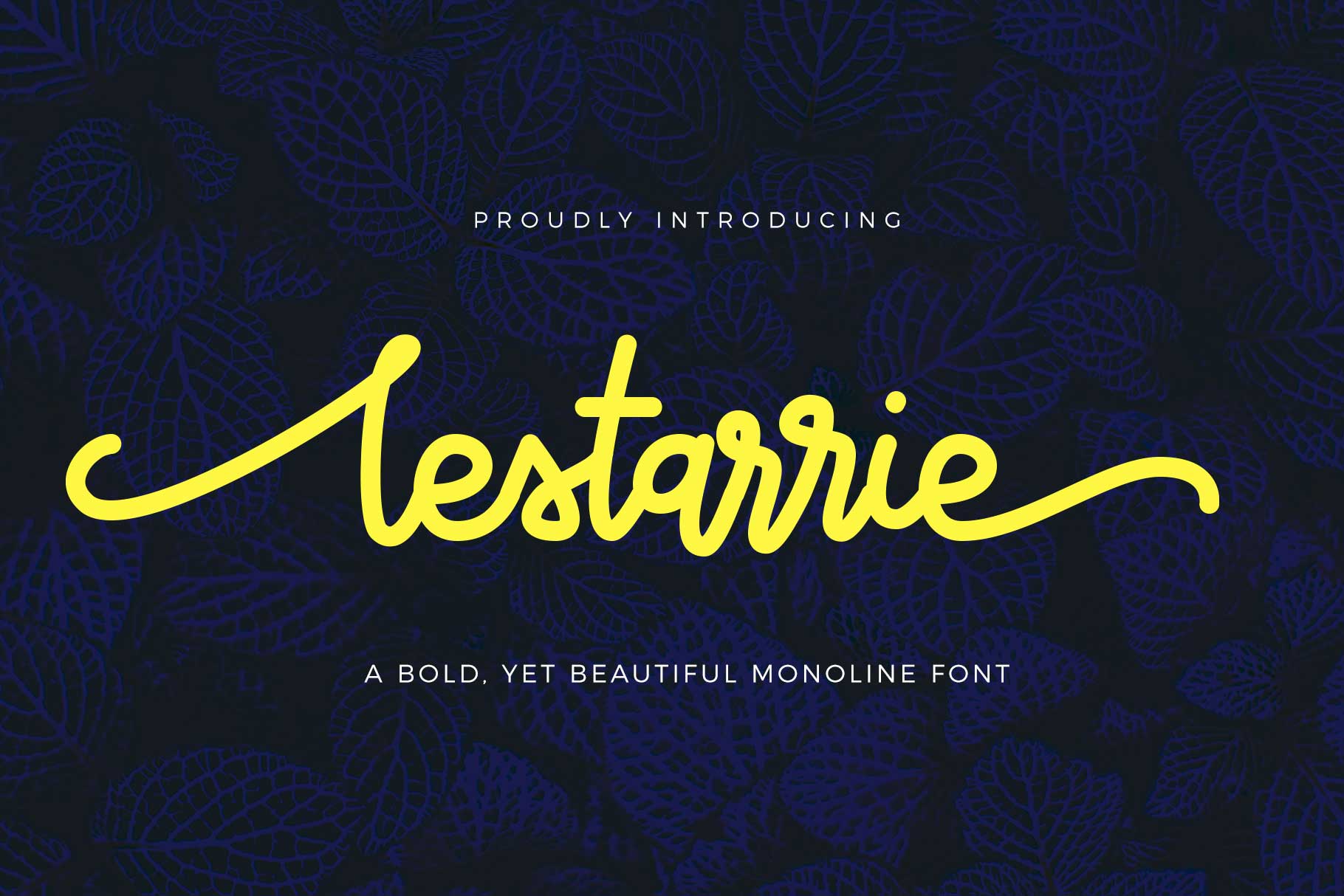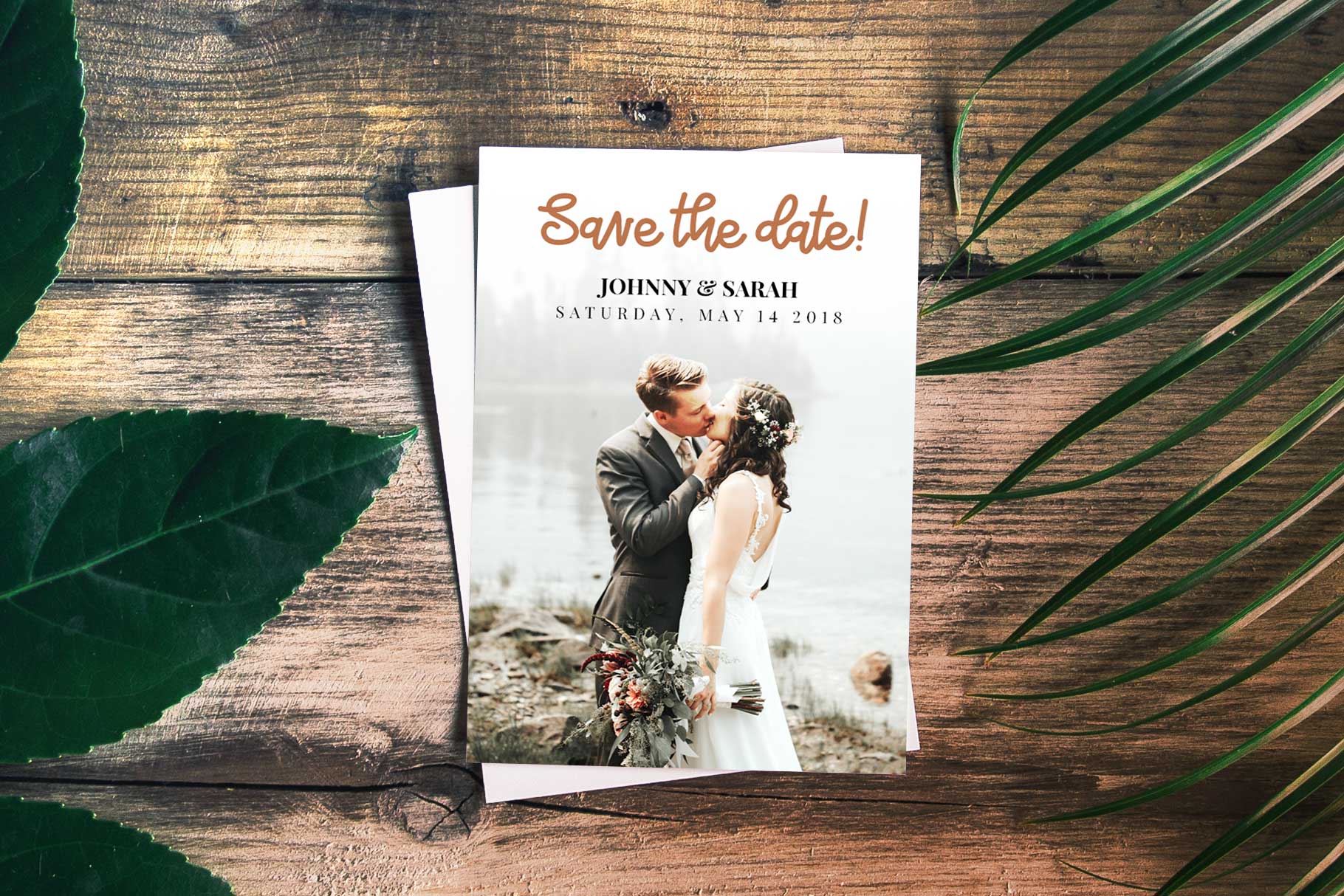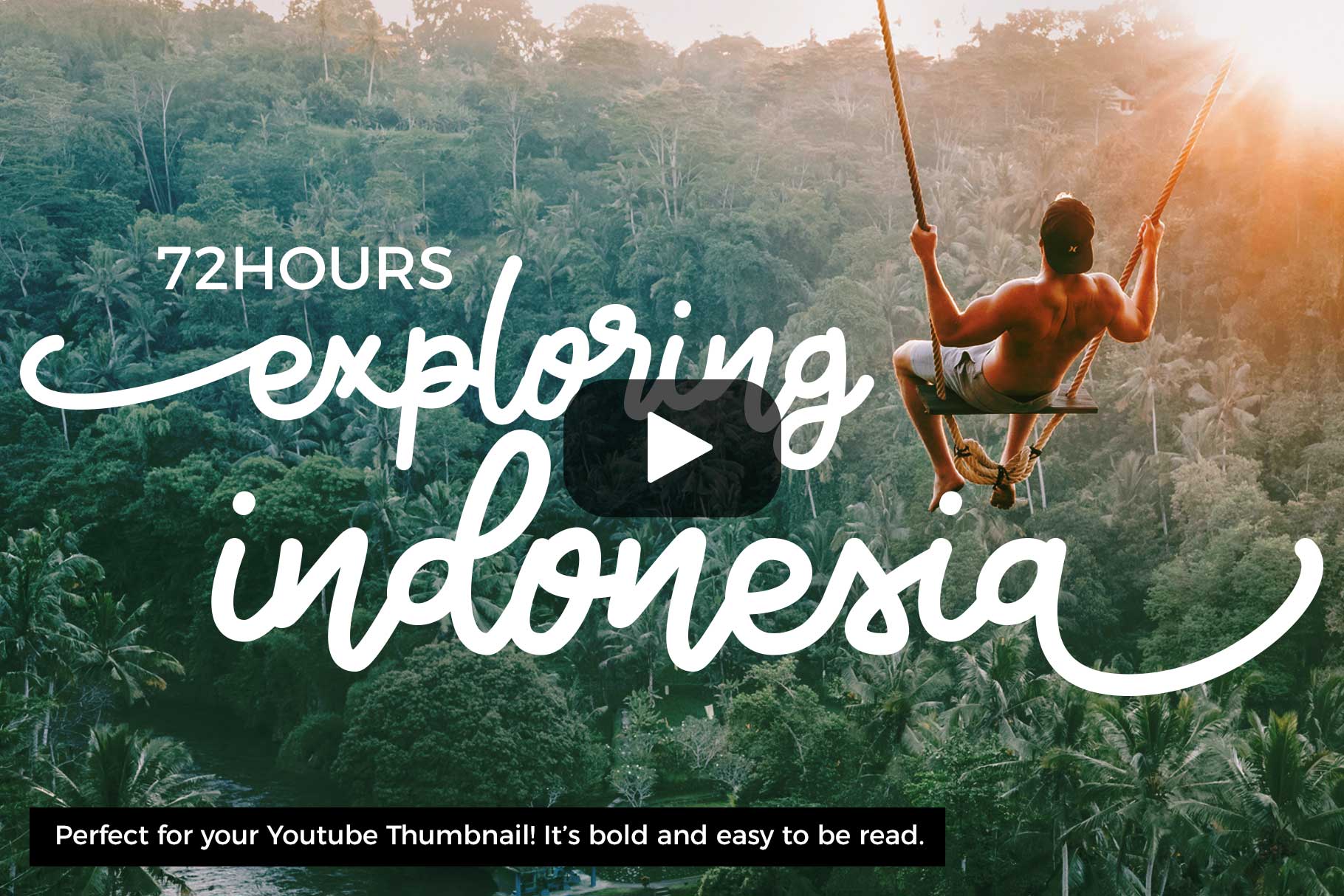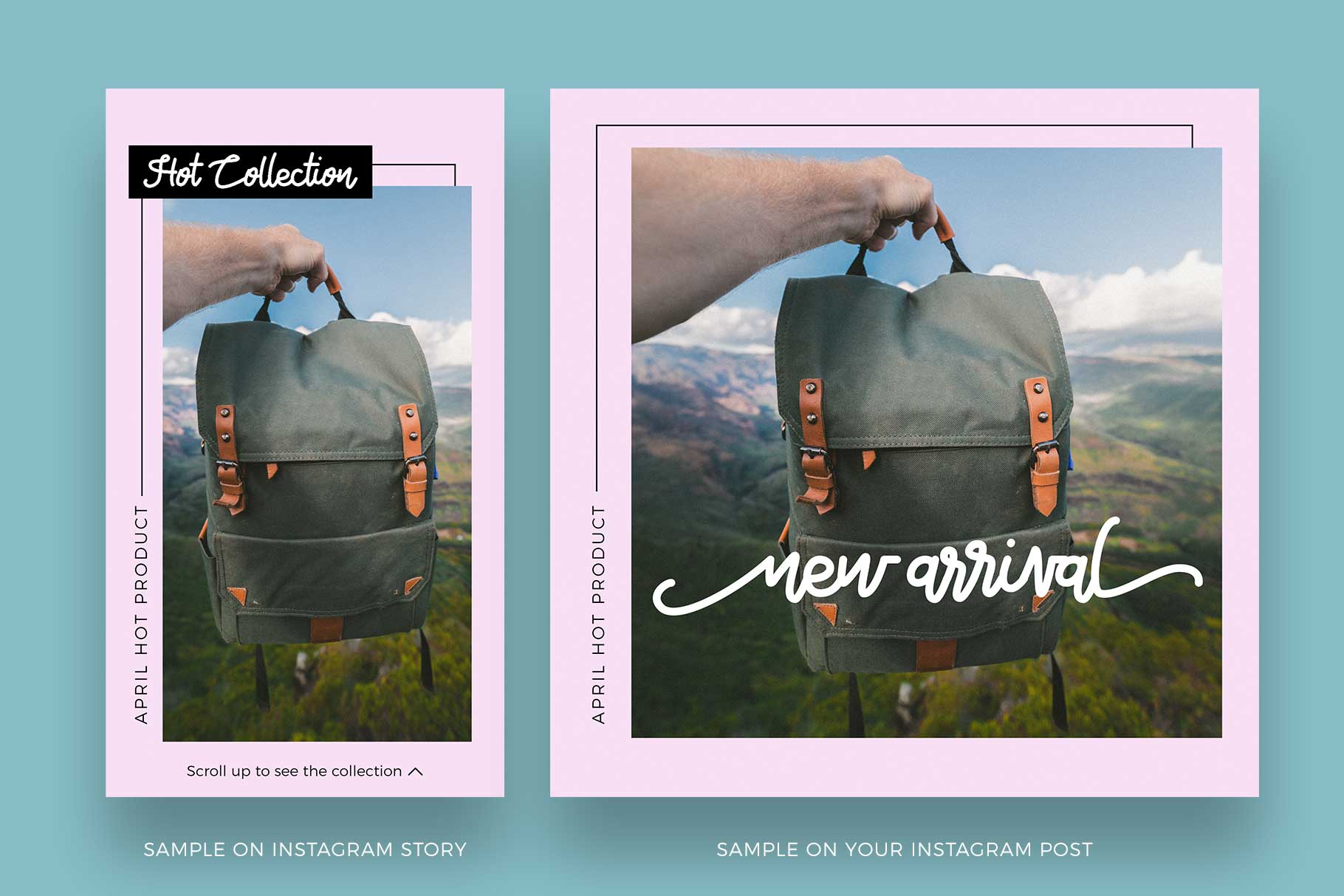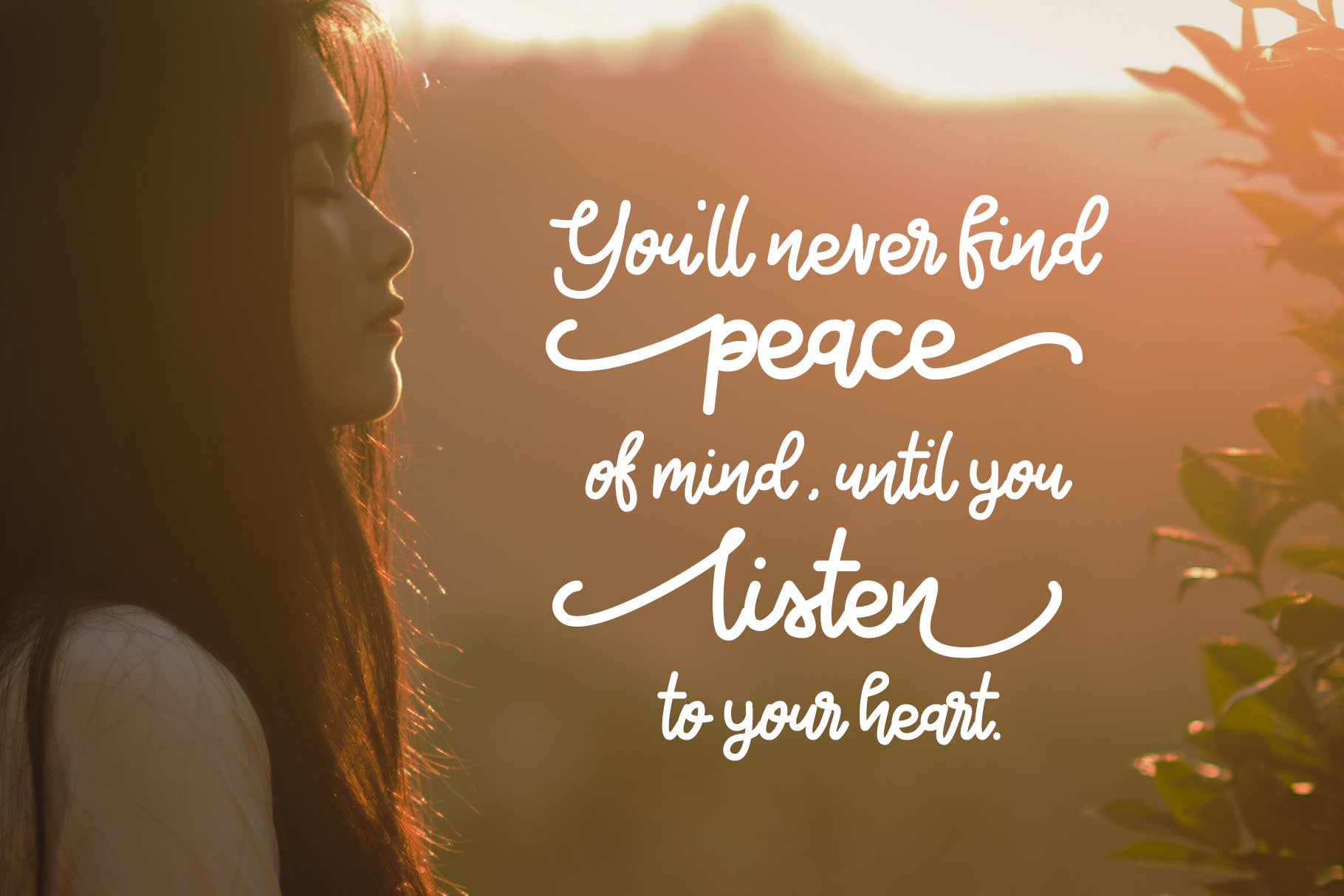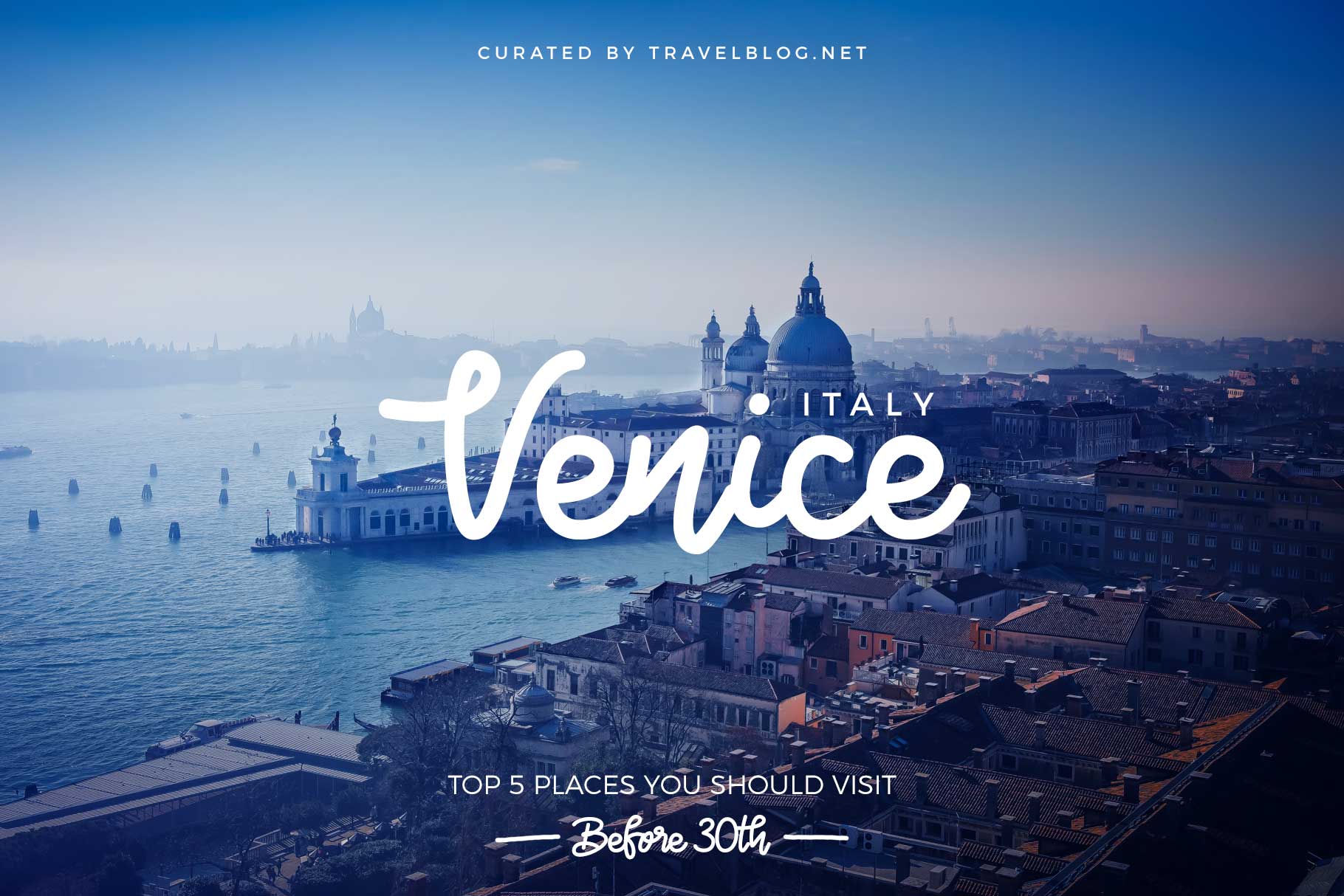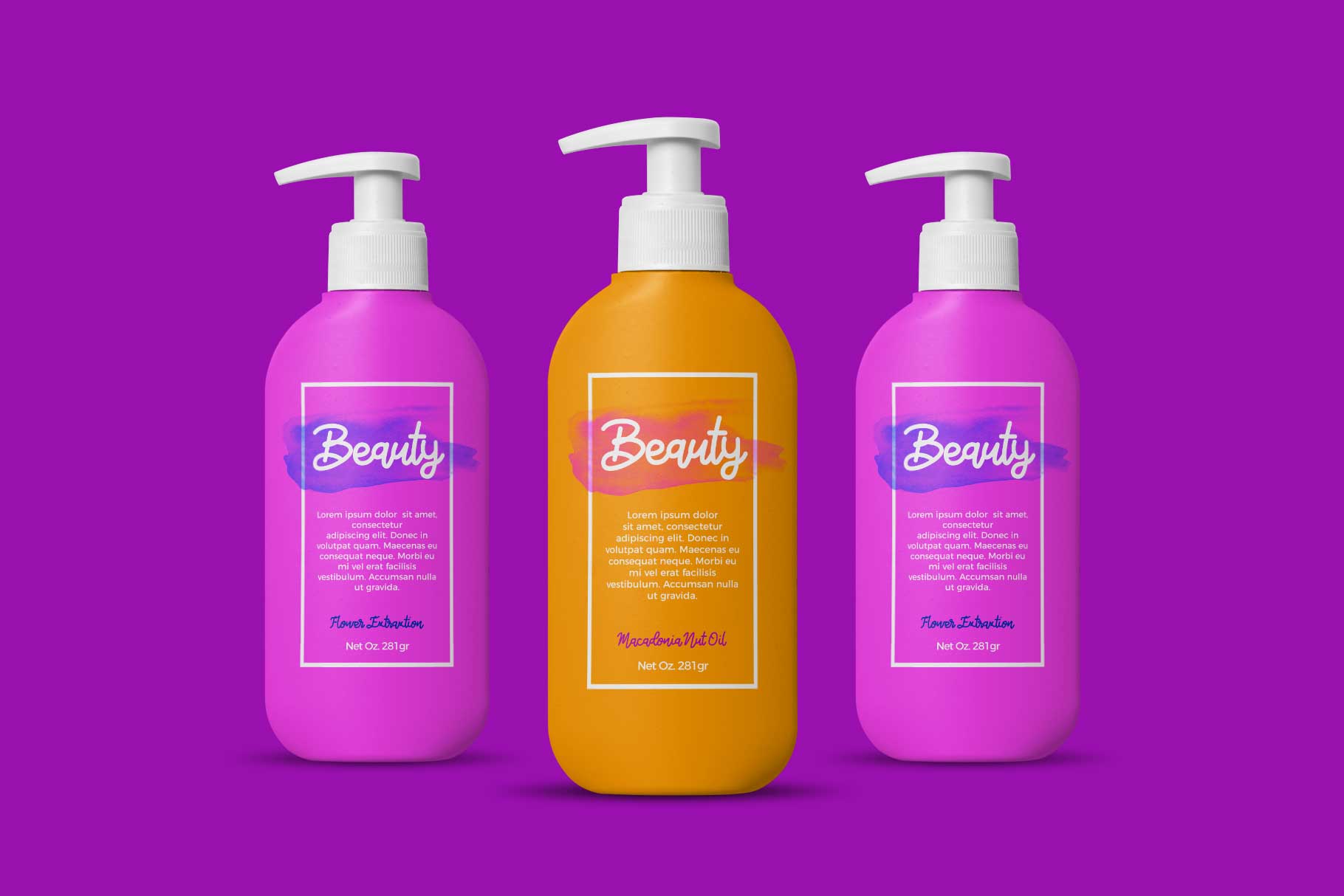
Lestarrie Font
About Lestarrie Font
Lestarrie is a bold yet beautiful monoline script font, perfect for modern uses and digital applications. This font is easy to read and adds a ton of style in any project type, and is intended for branded and social media content but can be used for a ton of different projects.